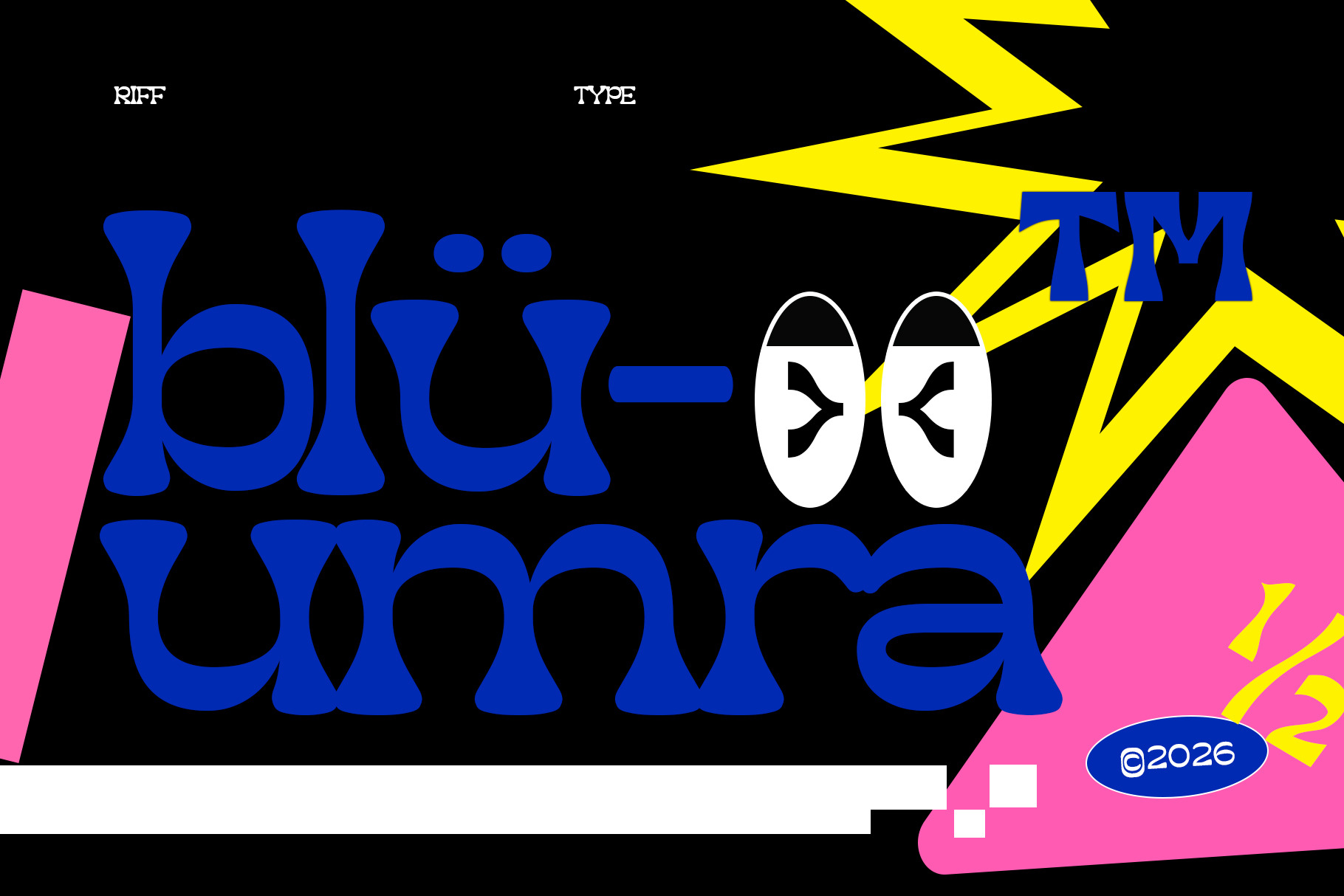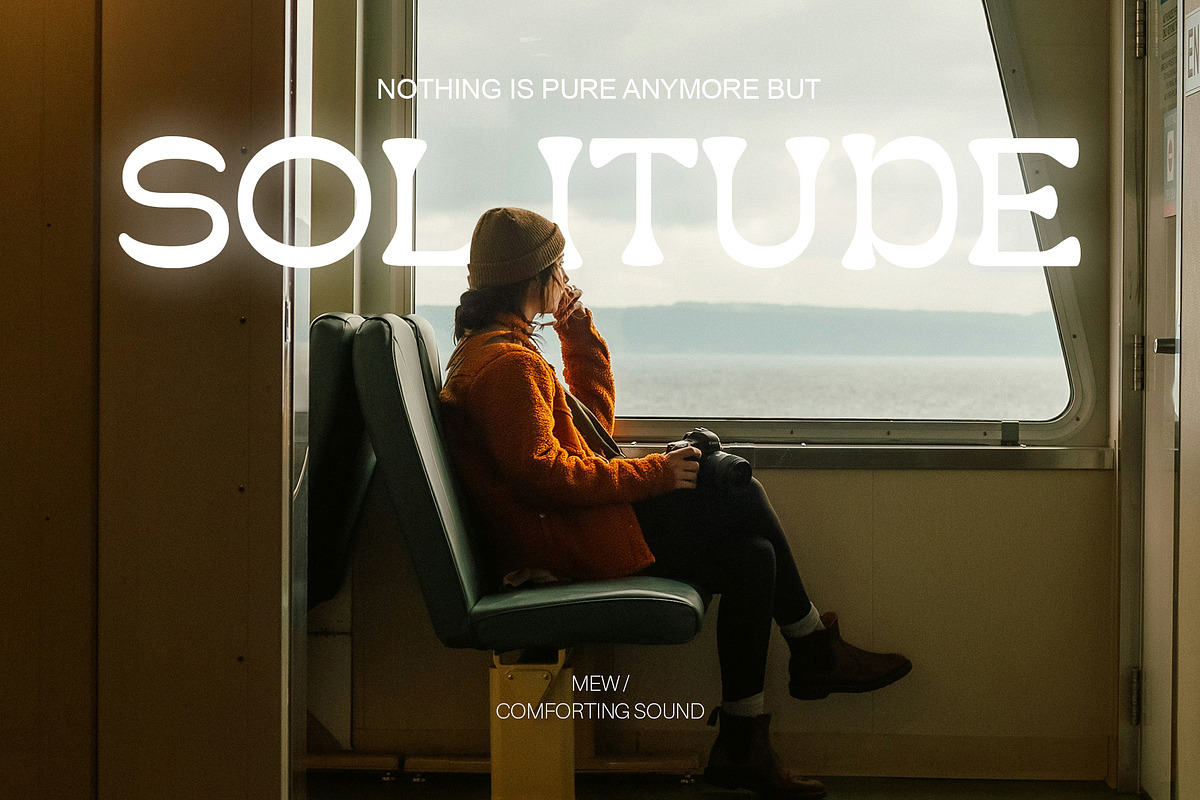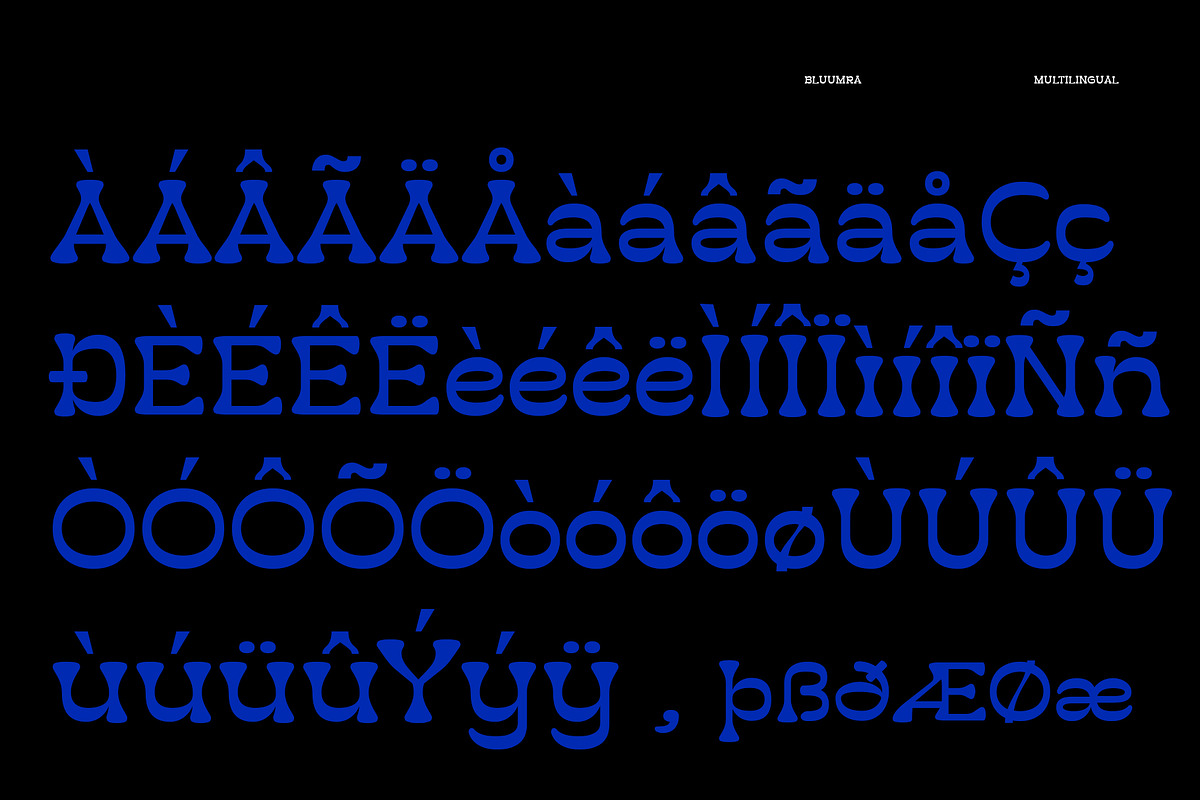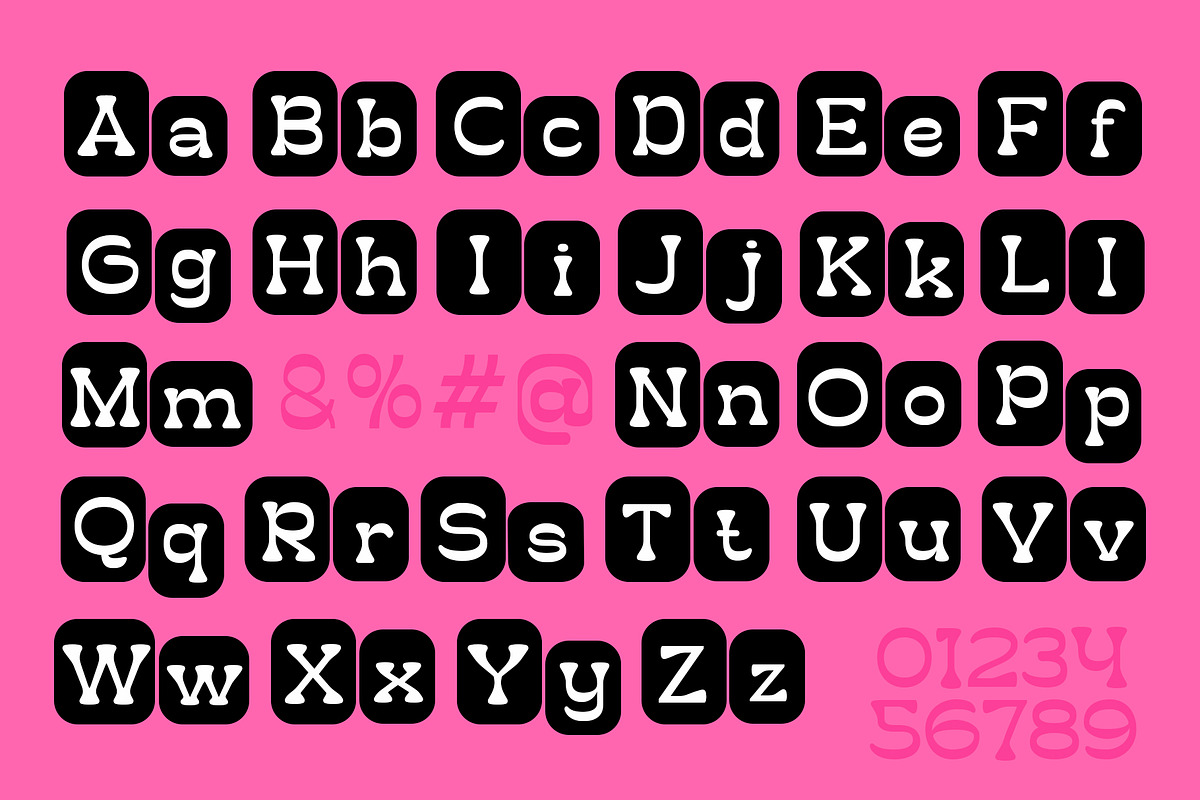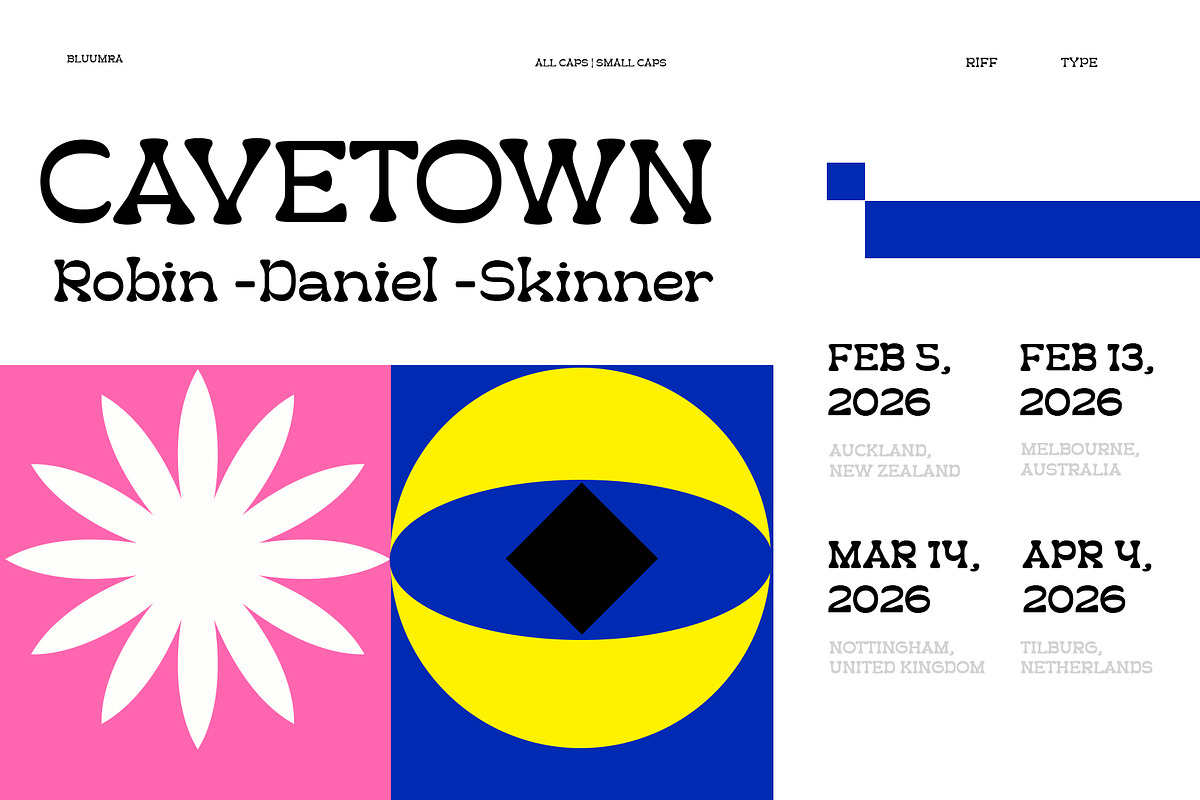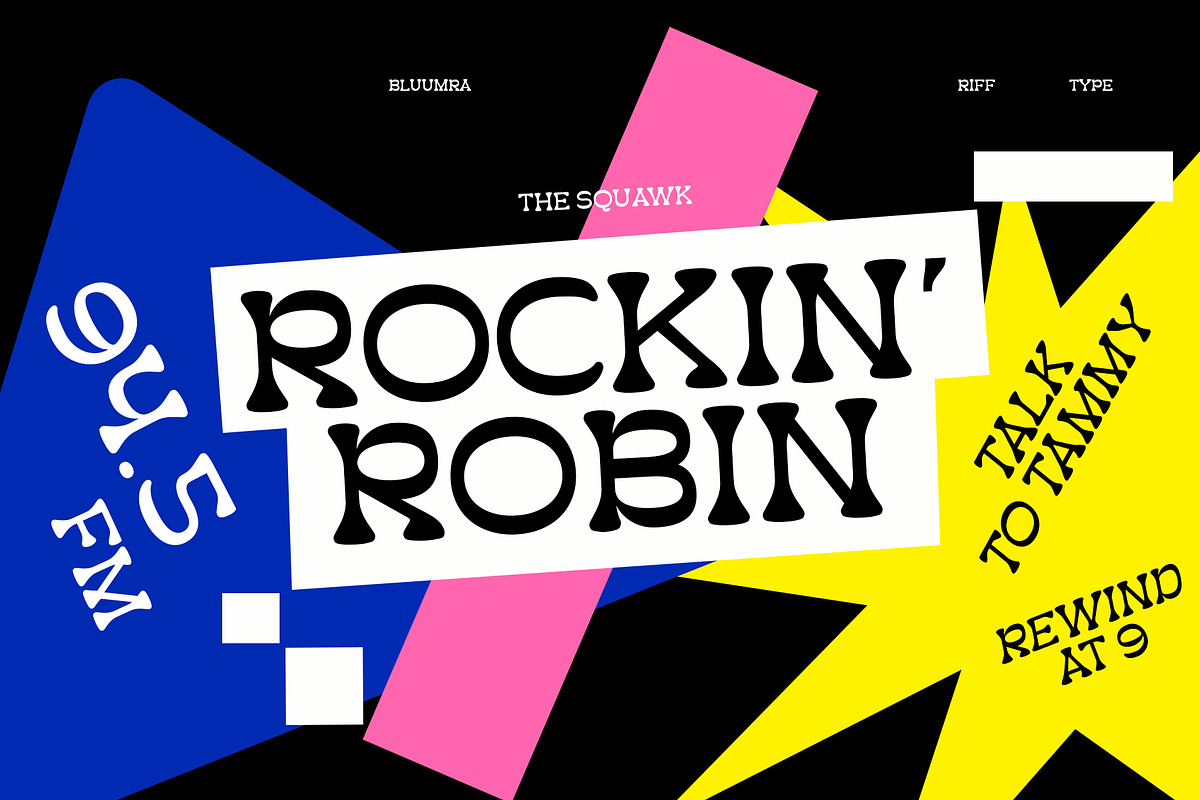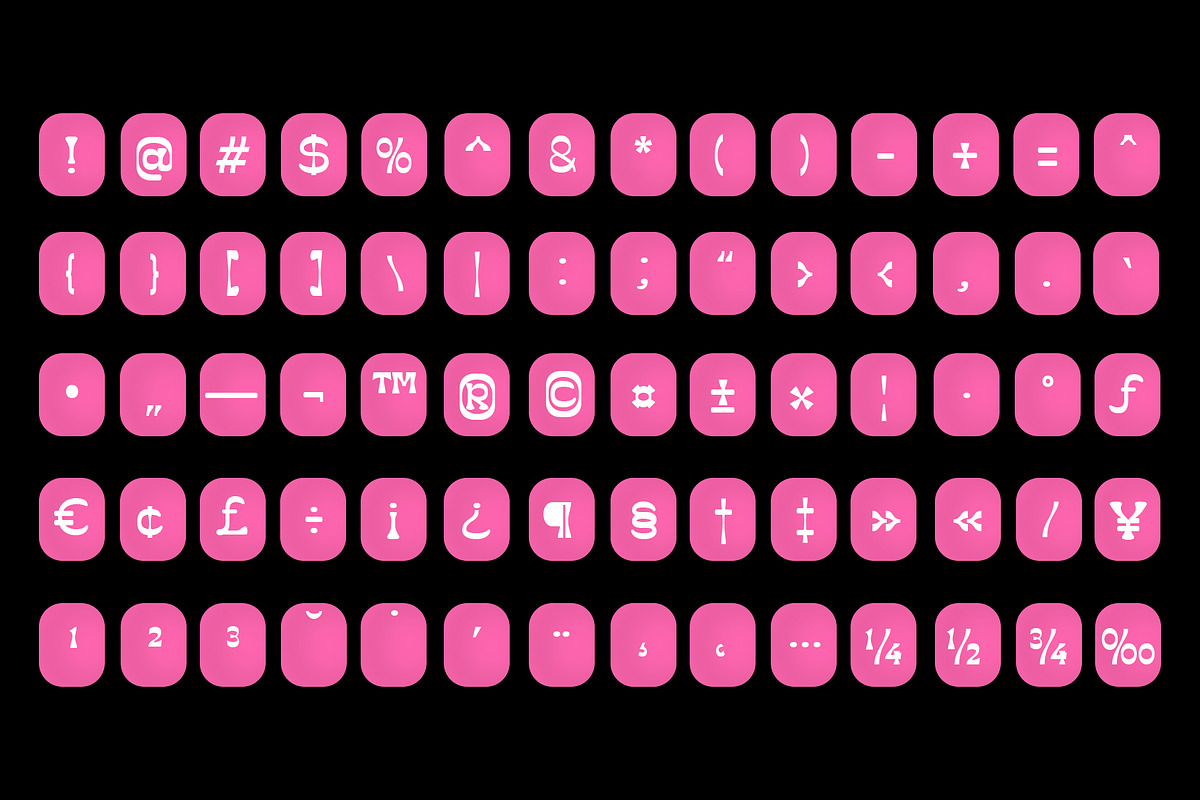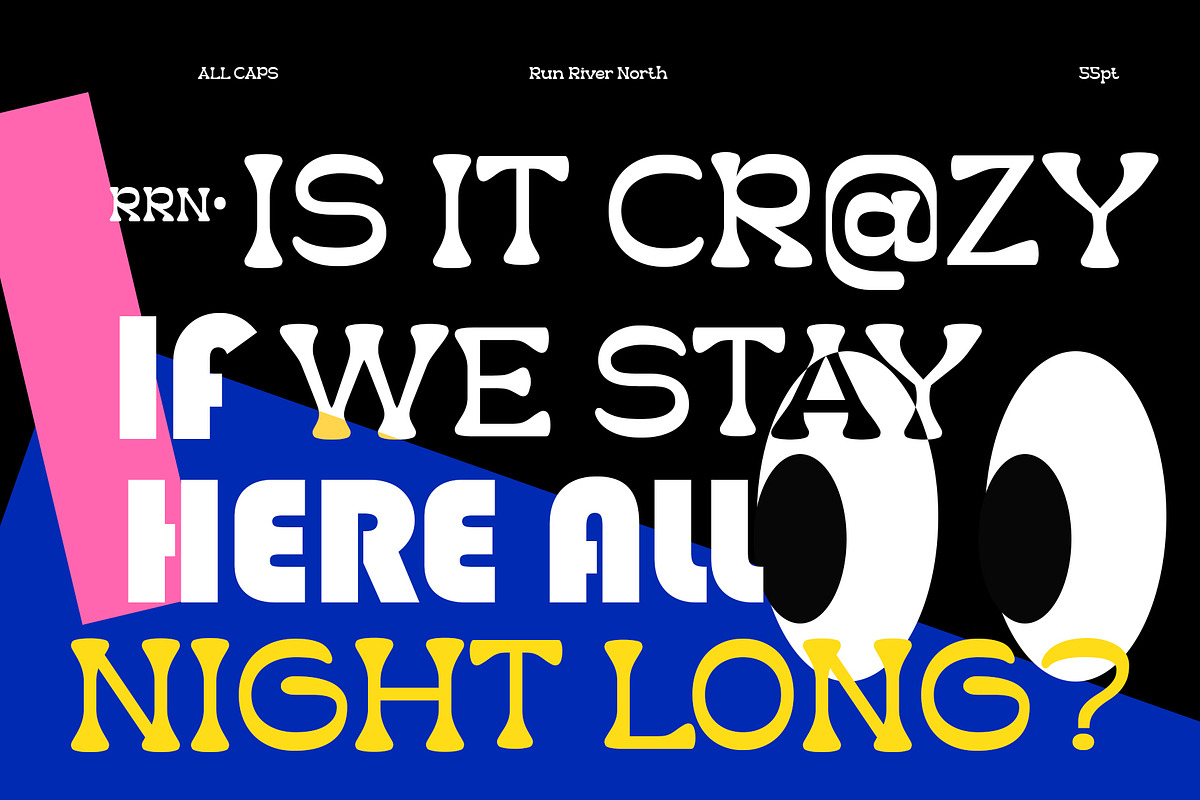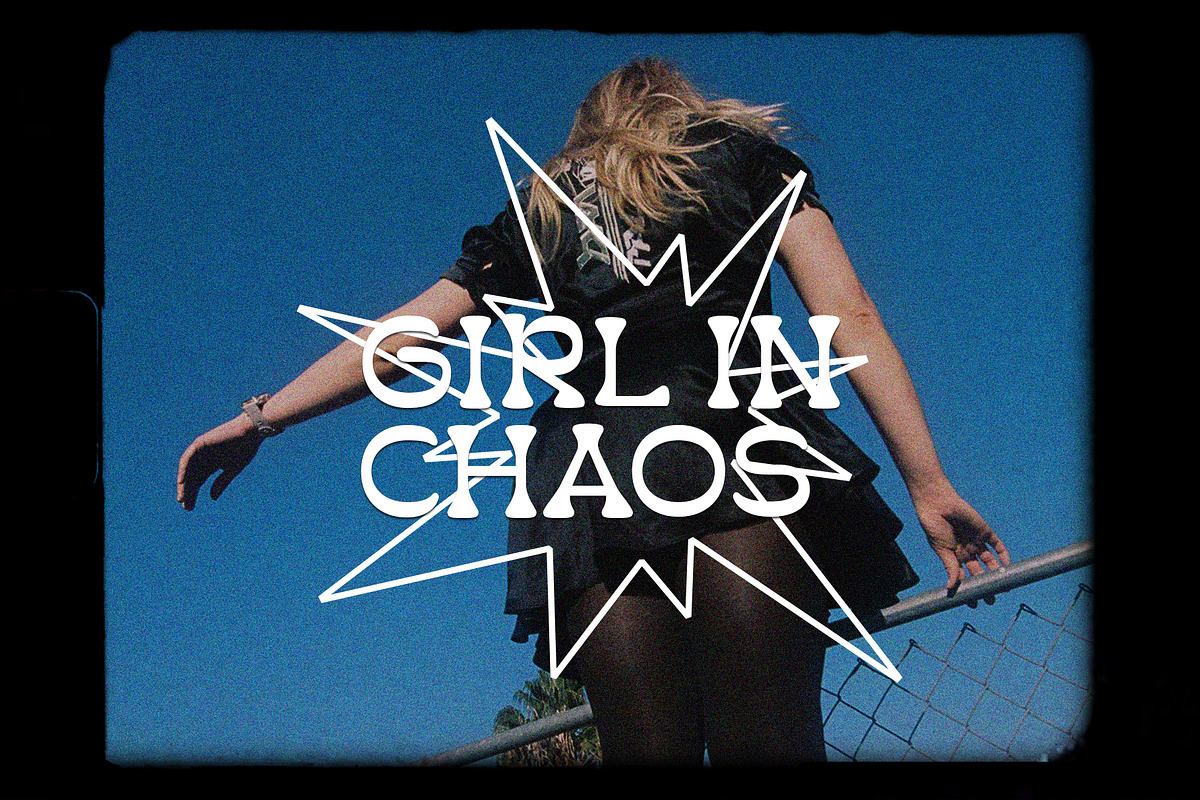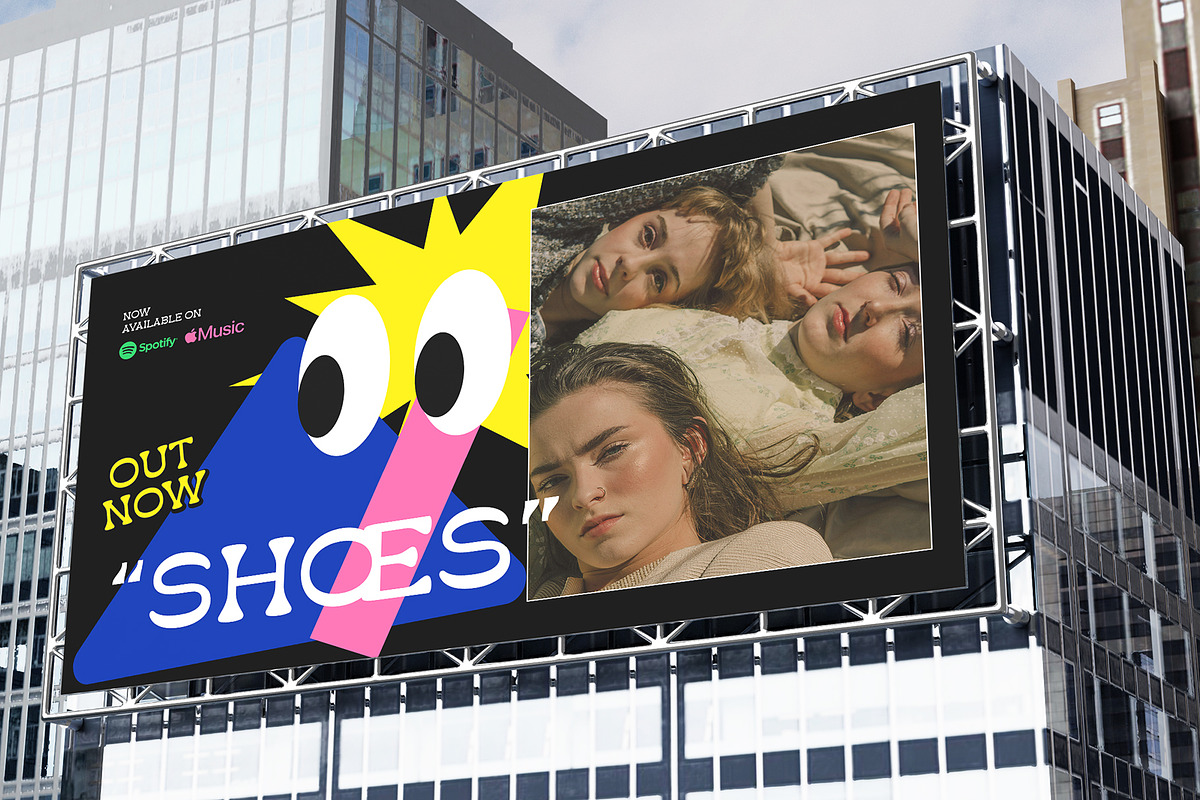
Bluumra - Playful Retro Pop Font
Bring a fun, energetic, and groovy vibe to your work, and make your designs stand out with this unique, whimsical typeface.
Bluumra features a cheerful, bold, and retro-inspired font style, designed to make your designs pop.